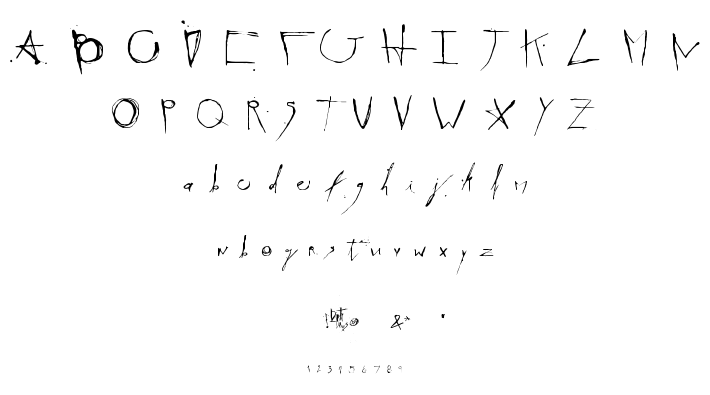
I created a true type font based on my personal hand lettered typography called Dirty Lines which is free to use. Please follow me on instagram and tag me when you use it so I can enjoy the fruit of my labor. Instagram me @nicostman.